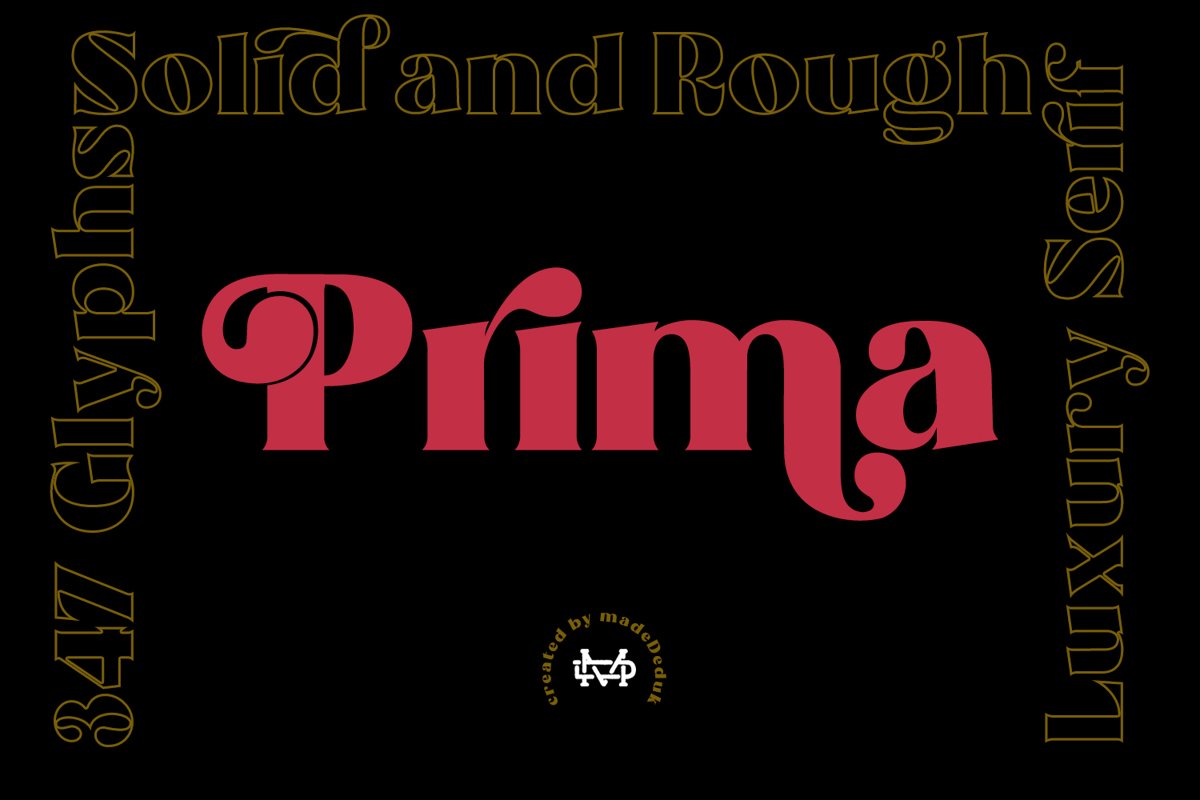
Prima - Luxury Typeface
Prima
Prima Rough
Really excited to introduce Prima is a luxury Typeface with contains ligatures and alternates each characters and comes with solid and rough version! A lot of stylish alternates characters will makes this font suitable for your any project design.Included file:
Feature
• UPPERCASE
• lowercase
• Number & Symbol
• International Glyphs
• Alternative Uppercase
• Alternative lowercase